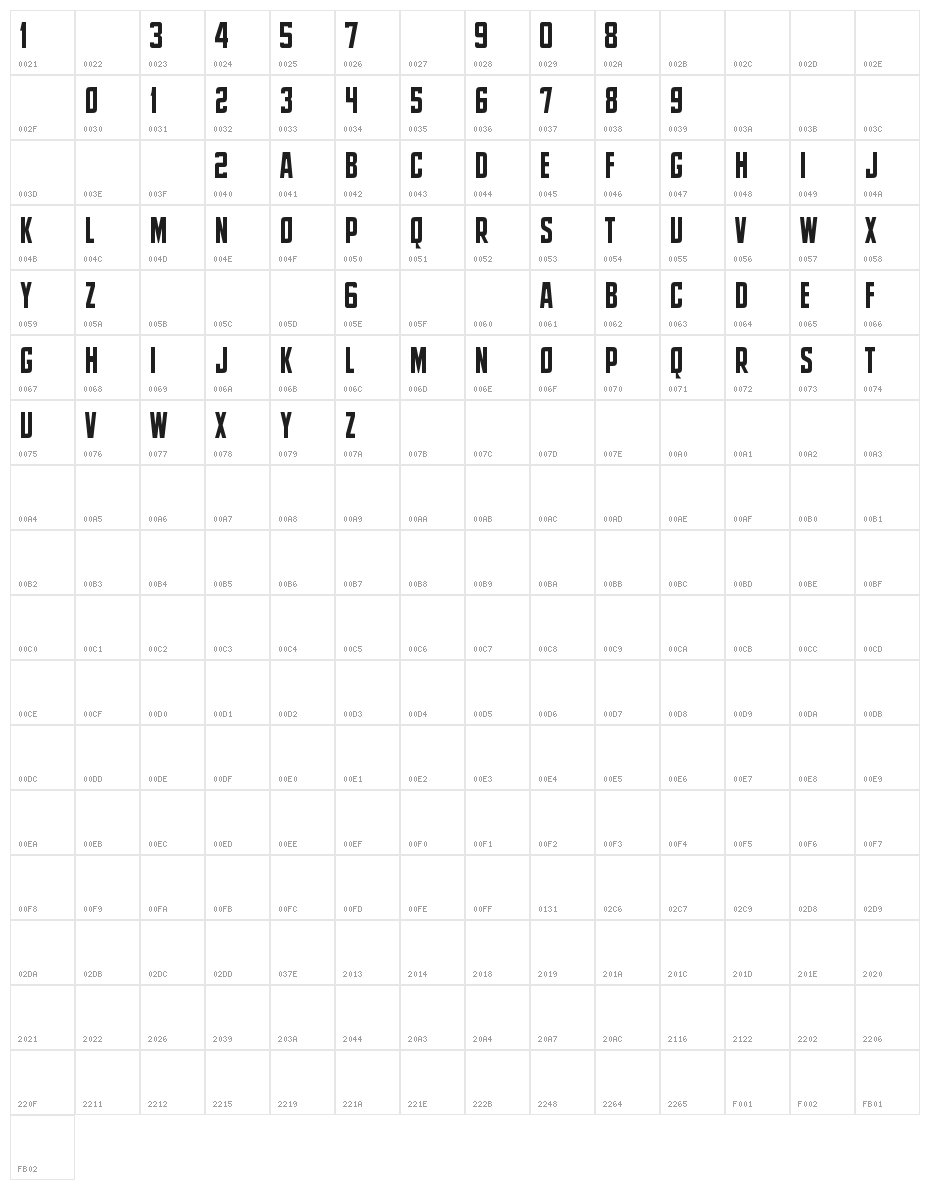
NCAA BC Eagles UA Font
NCAA BC Eagles UA Description
This font features a bold and assertive style with strong, angular lines and a geometric structure. The uppercase letters are tall and commanding, with a consistent stroke width that conveys a sense of stability and strength. The numbers are equally robust, maintaining the same boldness and clarity as the letters. This font is designed to capture attention and make a statement, making it ideal for use in contexts where impact is essential. The overall design is modern and clean, with a slight nod to athletic or collegiate themes, which is evident in its structured and disciplined appearance. The characters are tightly spaced, enhancing the compact and powerful look of the text.
Proposed ProjectsIdeal for sports branding, team logos, posters, and headlines that require a strong visual impact.